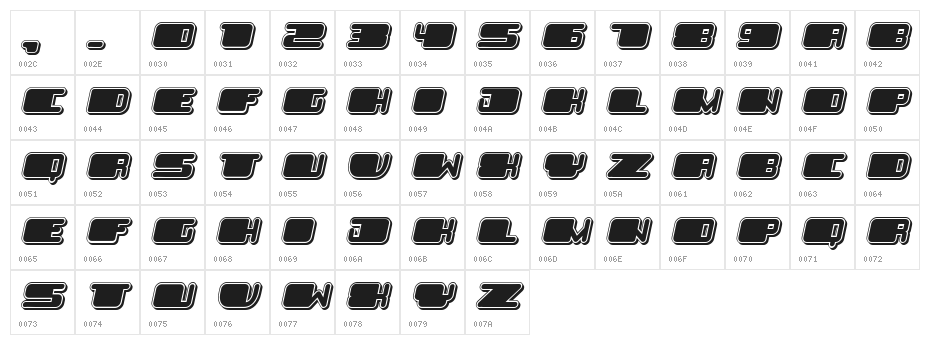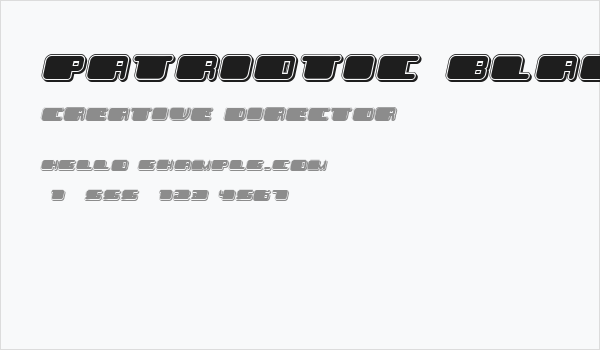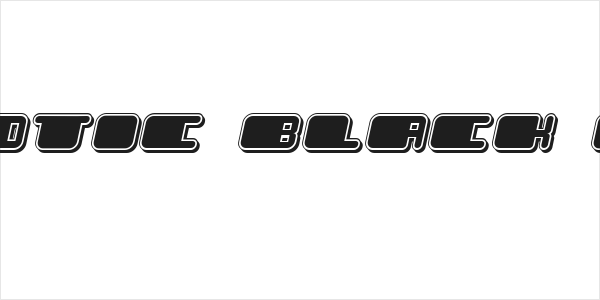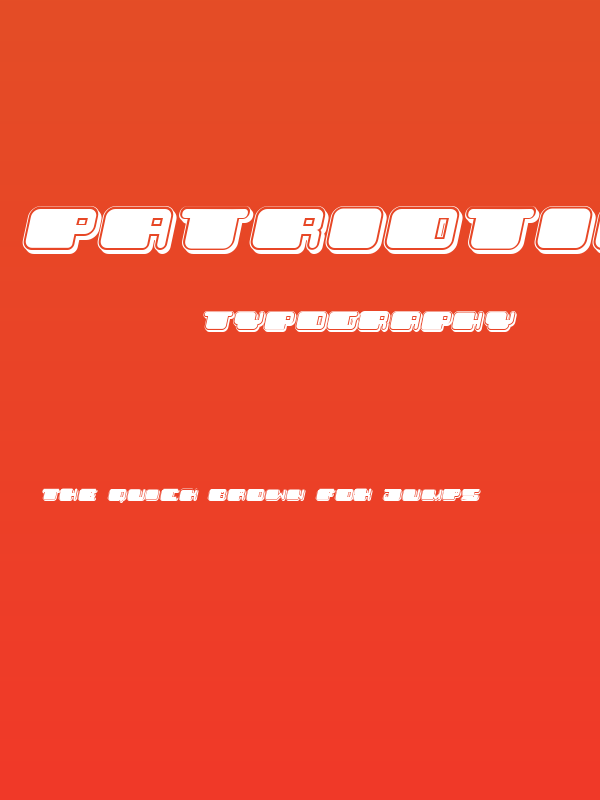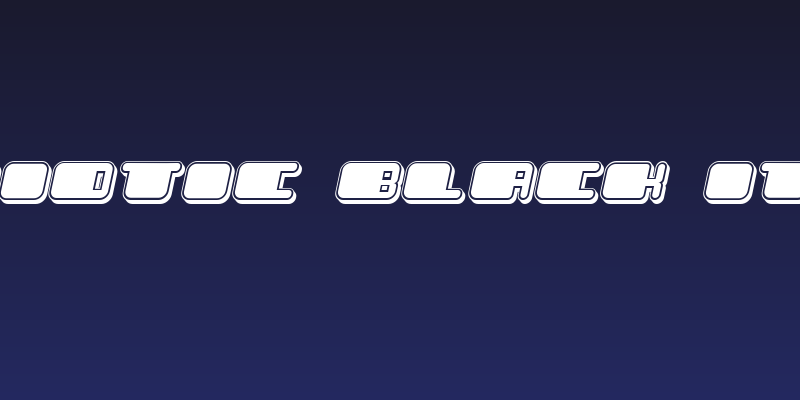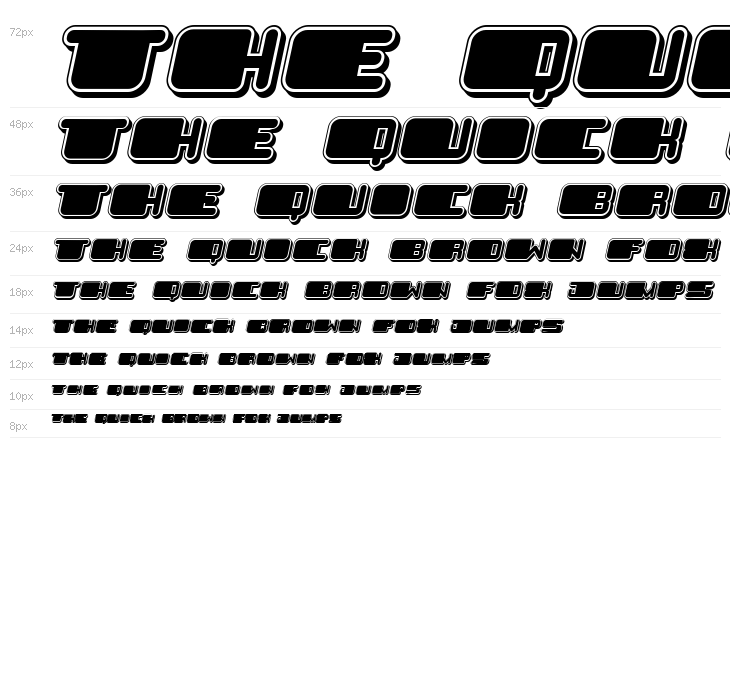
Patriotic Black Italic Font
Patriotic Black Italic Description
This font features a bold and robust design with a distinct italic slant, giving it a dynamic and forward-moving appearance. The characters are outlined, creating a striking contrast between the thick, solid interior and the thin, sharp outer lines. This style adds a sense of depth and dimension, making it stand out prominently. The font maintains a consistent weight throughout, ensuring readability while emphasizing its bold nature. The rounded edges of each character soften the overall look, balancing the boldness with a touch of approachability. Its unique style is both modern and slightly futuristic, making it suitable for a variety of creative applications.
| Proposed Projects | Ideal for branding, posters, sports team logos, and any project requiring a bold, eye-catching typeface. |